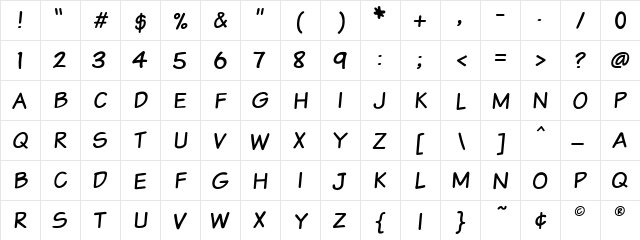
VTCSundaykomixcaps Regular Font Preview
VTCSundaykomixcaps Regular
VTCSundaykomixcaps Regular Font Details
| Designer | WolfBainX |
Design Context for VTCSundaykomixcaps Typeface
VTCSundaykomixcaps takes a measured approach to typography — its balanced proportions and neutral character make it a reliable workhorse for both digital and print work.